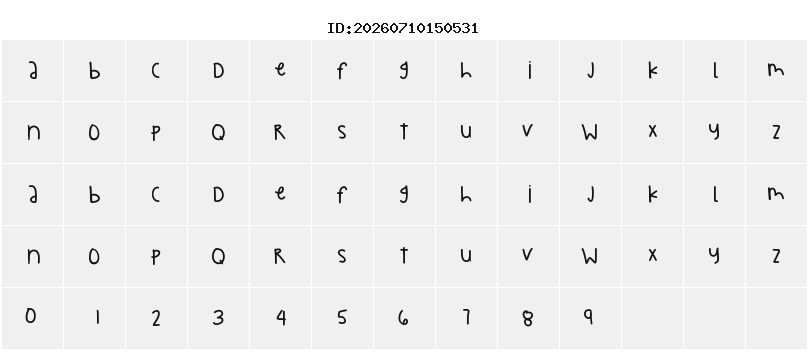
FaithWillBeHere Preview
• Font Name: FaithWillBeHere
• Full Font Name: FaithWillBeHere
About FaithWillBeHere.ttf
FaithWillBeHere.ttf is a modern, elegant sans-serif font designed for ultimate readability and visual harmony. Perfect for branding, headlines, web design, and print materials.